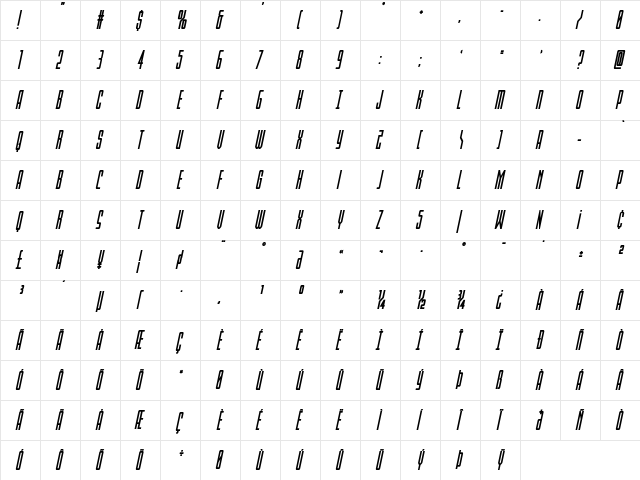
Blue Cobra Bold Italic Regular
Design Context for Blue Cobra Bold Italic Typeface
Blue Cobra Bold Italic is a composed and adaptable typeface that performs quietly and consistently across a wide range of design contexts. The slanted form adds forward momentum and visual energy. The heavy weight commands attention and anchors typographic hierarchies.